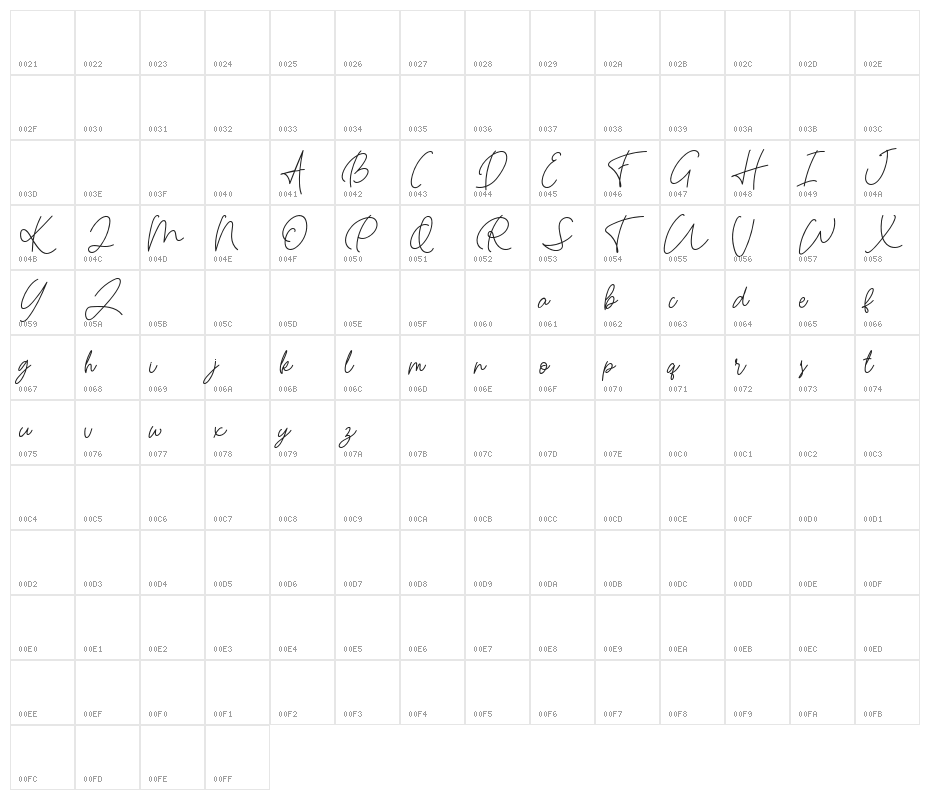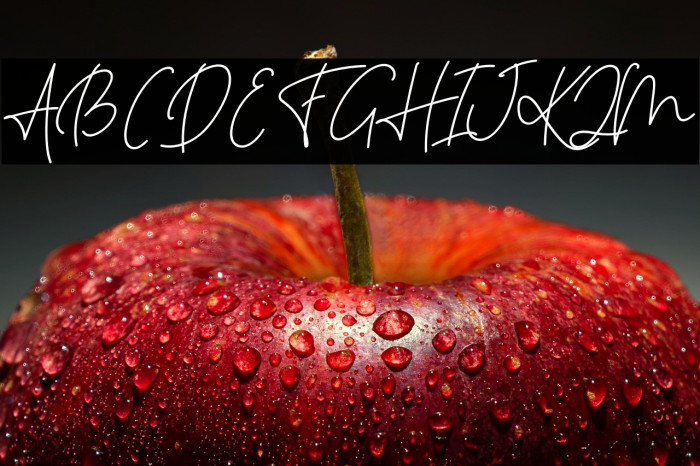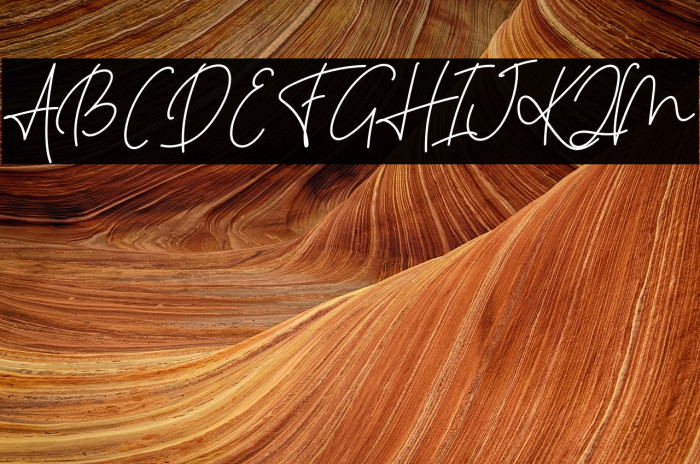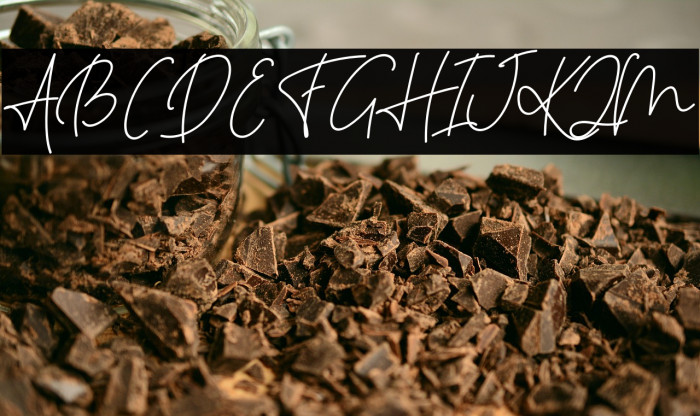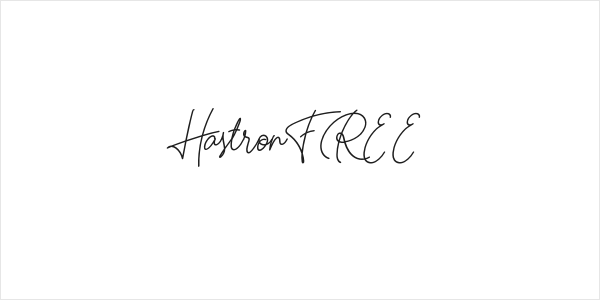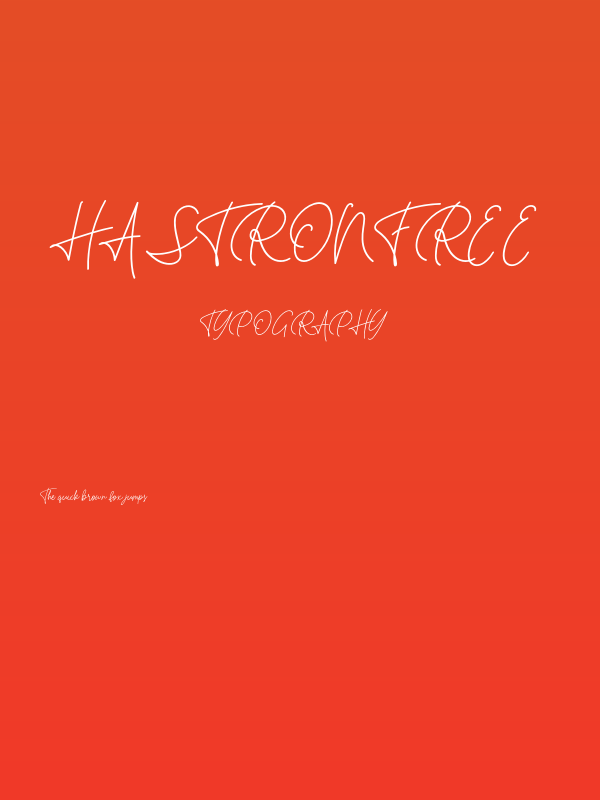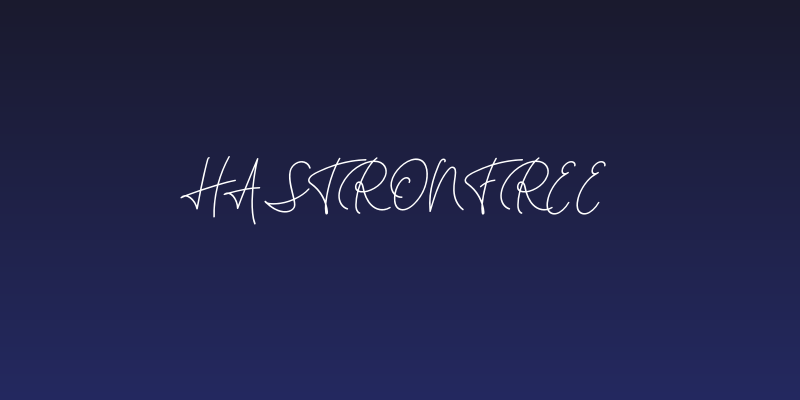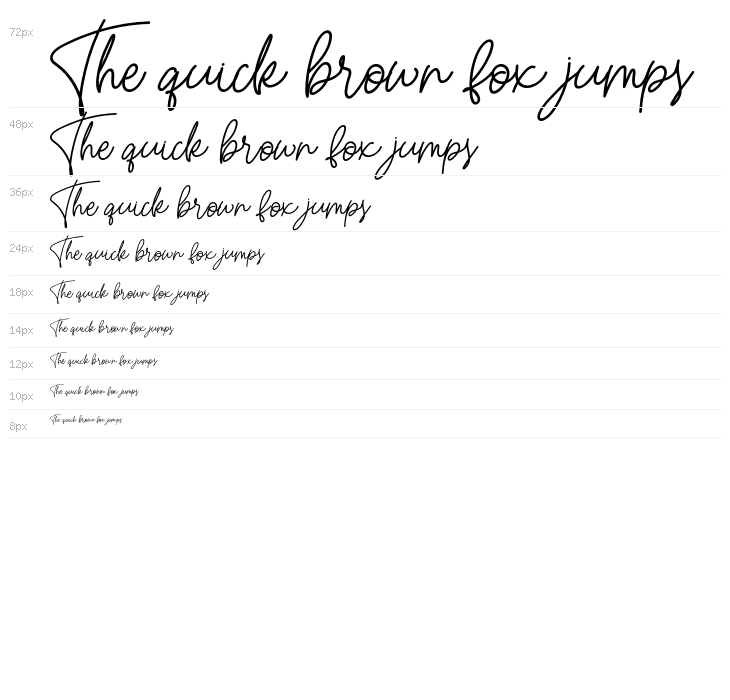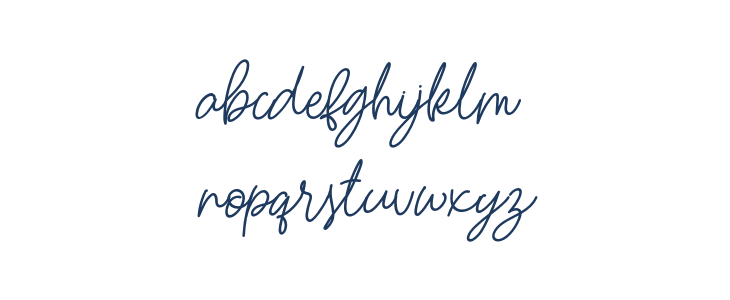
HastronFREE Font
HastronFREE Description
This font features a flowing, cursive style that mimics natural handwriting. The uppercase letters are elegantly elongated with a slight slant, giving them a sophisticated and artistic appearance. The lowercase letters maintain a consistent fluidity, enhancing the handwritten feel. The strokes are smooth and connected, creating a seamless look across words. This font exudes a sense of elegance and personal touch, making it ideal for projects that require a personal or creative flair.
| Overall Style | Elegant, Artistic |
| Proposed Projects | Ideal for wedding invitations, personal branding, greeting cards, and artistic projects. |